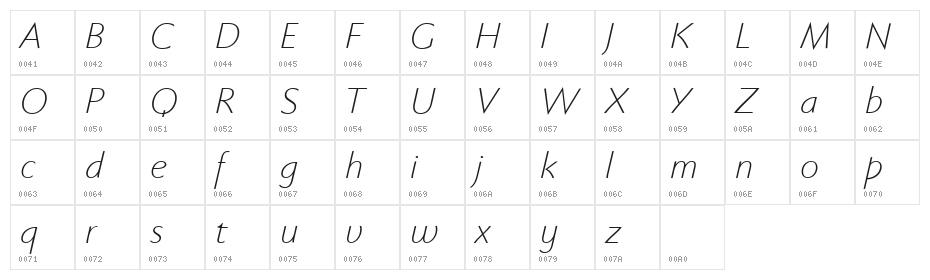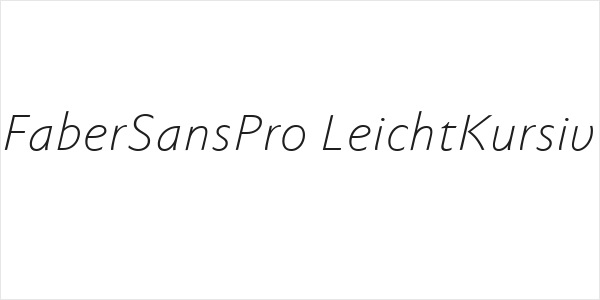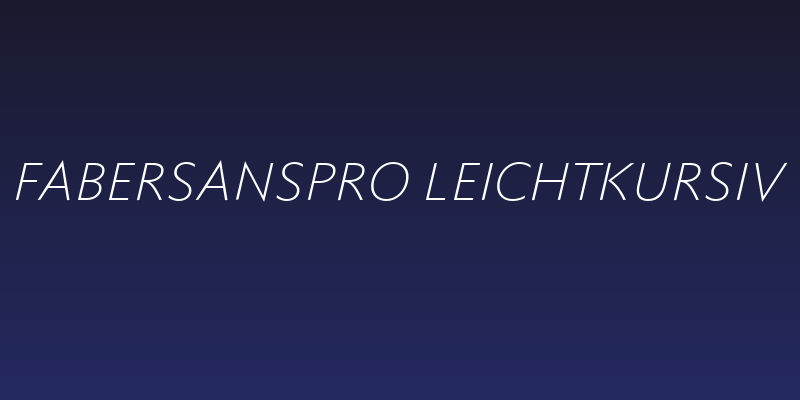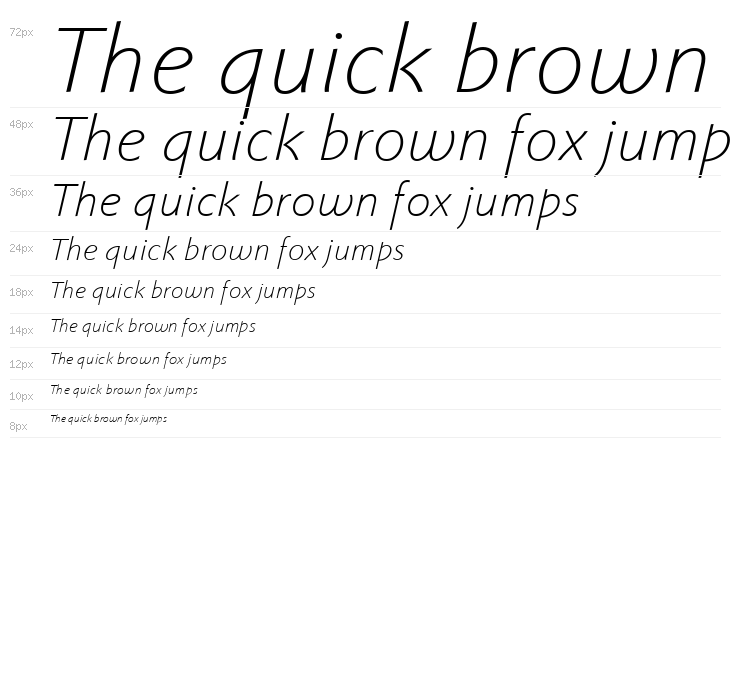
FaberSansPro-LeichtKursiv Font
FaberSansPro-LeichtKursiv Description
This font features a sleek and modern sans-serif design with a light and airy feel. The characters are slightly italicized, giving a sense of elegance and fluidity. The strokes are consistent and smooth, with a medium contrast that enhances readability while maintaining a stylish appearance. The overall look is clean and sophisticated, making it suitable for a variety of design applications. The spacing between characters is normal, ensuring clarity and legibility across different sizes.
| Proposed Projects | Ideal for branding, editorial design, and digital interfaces where a modern and elegant touch is desired. |